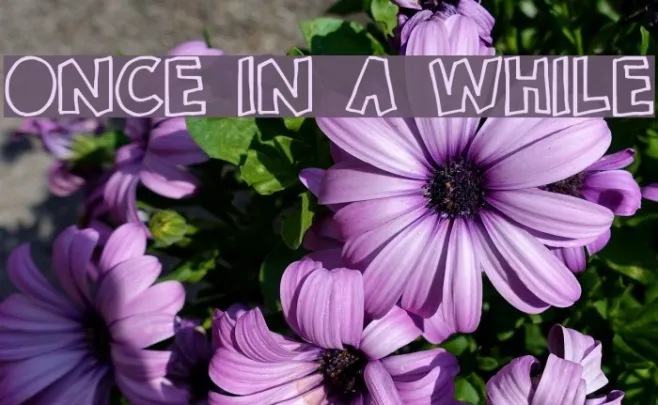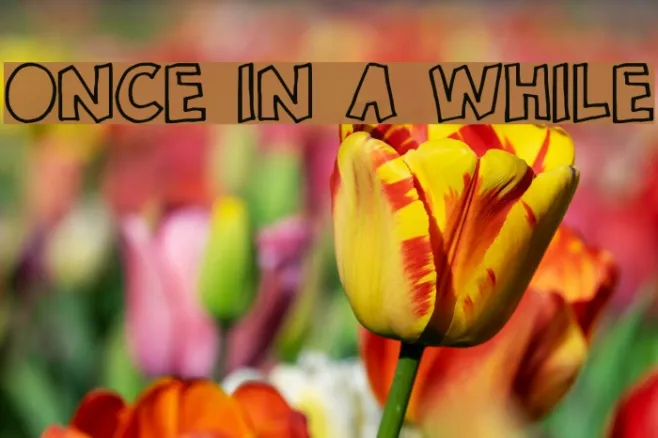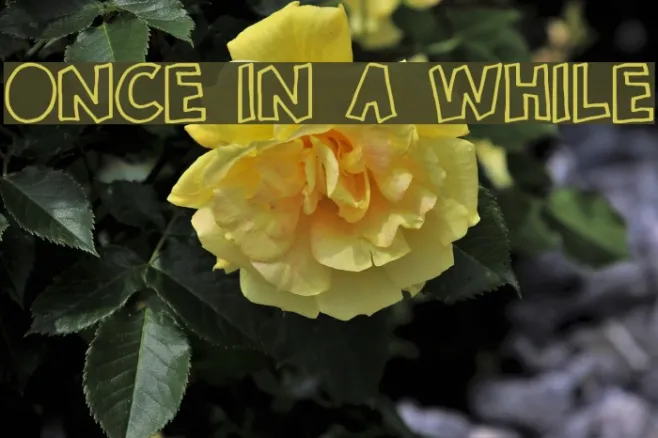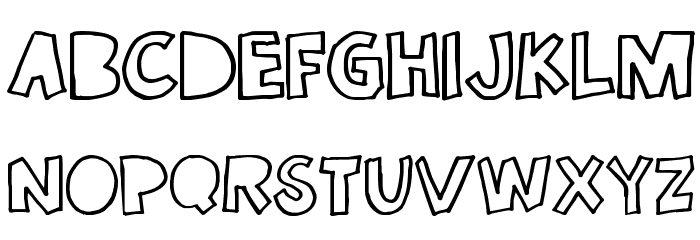
Once in a while Font
Once in a while Description
This playful and bold font features a hand-drawn, cartoonish style with thick outlines and exaggerated, irregular shapes. Each character appears to have been sketched with a casual, whimsical touch, giving it a lively and energetic feel. The uppercase letters are particularly striking, with their bold presence and unique flair. The font maintains a consistent stroke width, contributing to its cohesive appearance. Its informal and fun design makes it suitable for creative and lighthearted projects. The characters are evenly spaced, ensuring readability while maintaining the font's quirky charm.
A playful, hand-drawn font with bold outlines and a cartoonish style from Outline fonts.
- Proposed Projects: Ideal for children's books, comic strips, playful branding, and party invitations.
- Overall Style: Playful, Cartoonish